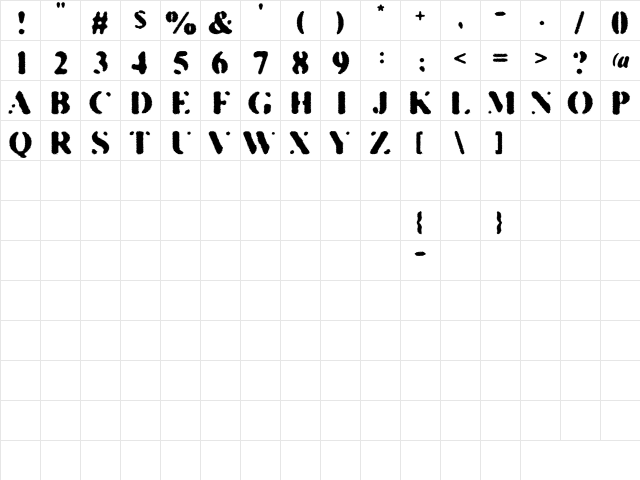
KILL THE HIPPIES Font Preview
KILL THE HIPPIES KILL THE HIPPIES
KILL THE HIPPIES Font Details
| Style | KILL THE HIPPIES |
| Foundry | High-Logic |
| Designer | High-Logic - Erwin Denissen |
| Copyright | KILL THE HIPPIES by Jere Chandler |
Design Context for KILL THE HIPPIES Typeface
KILL THE HIPPIES is a composed and adaptable typeface that performs quietly and consistently across a wide range of design contexts.